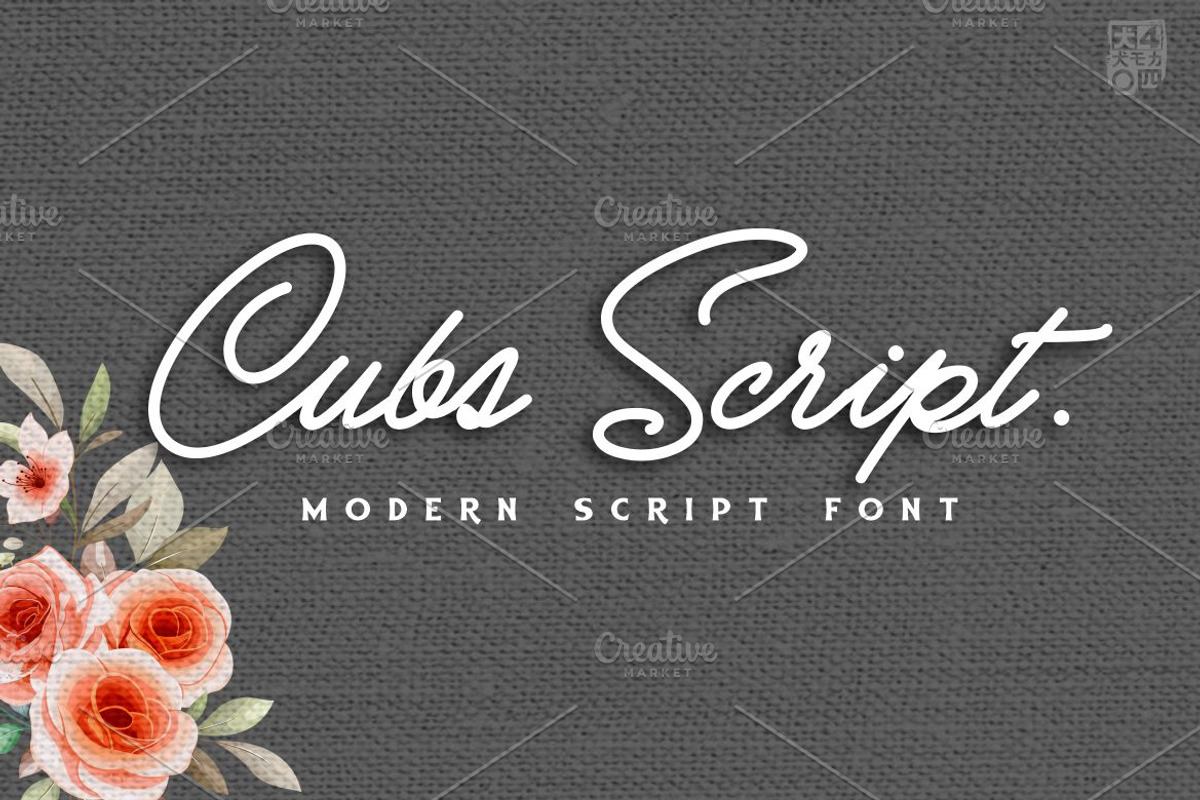
Please note, to use this font for commercial purposes, you must purchase the full version. Cubs Script is a charming and elegant script font that combines flowing, handwritten-style letters with a touch of sophistication. Perfect for creating personalized invitations, branding, logos, and social media designs, this font adds a warm, friendly, and stylish feel to your projects. Whether you're designing for a wedding, event, or a creative brand, Cubs Script gives your work a unique and inviting touch. Test it out and enjoy free download access for personal use. Experience the graceful beauty of Cubs Script Font Free Download before purchasing the commercial license. Add a personal and stylish flair to your designs with Cubs Script.